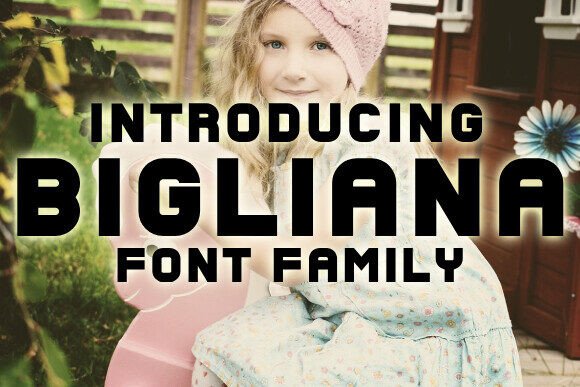
Introducing Bigliana Font: Elevate Your Designs with Style
Are you tired of using the same old fonts in your designs? Look no further than Bigliana Font, a stylish and versatile font family that will take your creations to the next level. Whether you’re a designer, crafty DIY enthusiast, or social media influencer, Bigliana Font is the perfect addition to your toolkit.
What is Bigliana Font?
Bigliana Font is a modern, elegant font family designed to make your designs look great. Its unique and stylish aesthetic is perfect for a wide range of applications, from posters and flyers to t-shirts and social media graphics. With its clean lines, precise curves, and balanced proportions, Bigliana Font exudes sophistication and refinement.
Key Features of Bigliana Font
- Stylish and Versatile: Bigliana Font is designed to be versatile, making it suitable for a wide range of design applications.
- Elegant Aesthetic: Its modern and elegant design ensures that your creations will stand out from the crowd.
- Highly Readable: Bigliana Font is optimized for readability, ensuring that your message is conveyed clearly and effectively.
Uses of Bigliana Font
Bigliana Font is perfect for a variety of design projects, including:
- Posters: Create eye-catching posters for events, promotions, or advertising campaigns.
- Flyers: Design flyers for businesses, products, or services that will grab attention.
- T-Shirts: Add a stylish touch to your t-shirt designs, making them perfect for fashion brands or personal use.
- Social Media Graphics: Elevate your social media presence with stylish graphics, quotes, or promotional materials.
- Logos and Branding: Use Bigliana Font to create professional logos and branding materials that exude elegance and sophistication.
Why Choose Bigliana Font?
With so many fonts available, why choose Bigliana Font? Here are a few compelling reasons:
- Unique Style: Bigliana Font offers a distinctive aesthetic that will set your designs apart.
- Easy to Read: Its high readability ensures that your message is conveyed effectively.
- Flexible: Bigliana Font is suitable for various design applications, making it a valuable addition to your font library.
- High-Quality: Bigliana Font is designed with precision and attention to detail, ensuring a high-quality finish.
Tips for Using Bigliana Font
To get the most out of Bigliana Font, follow these tips:
- Experiment with Sizes: Bigliana Font looks great in various sizes, so experiment to find the perfect fit for your design.
- Pair with Other Fonts: Combine Bigliana Font with other fonts to create a unique and visually appealing design.
- Adjust Line Spacing: Optimize line spacing to ensure that your text is easy to read.
- Use on Dark Backgrounds: Bigliana Font looks stunning on dark backgrounds, adding an extra touch of elegance to your design.
Bigliana Font is a stylish and versatile font family that will elevate your designs to new heights. Its unique aesthetic, high readability, and flexibility make it perfect for various design applications. Whether you’re a designer, crafty DIY enthusiast, or social media influencer, Bigliana Font is an excellent addition to your toolkit. So why wait? Download Bigliana Font today and take your designs to the next level!